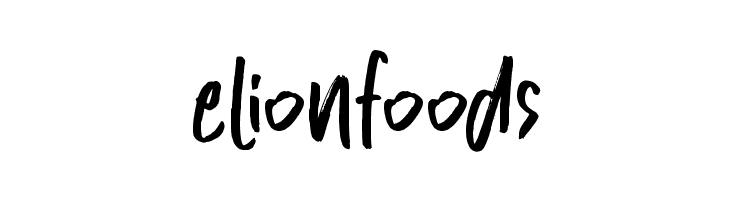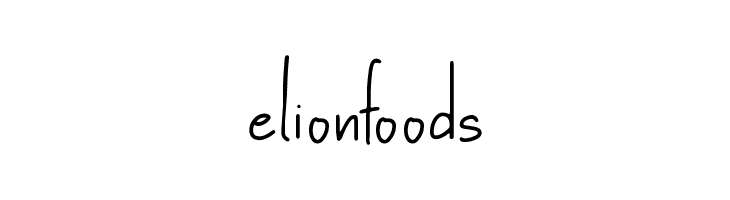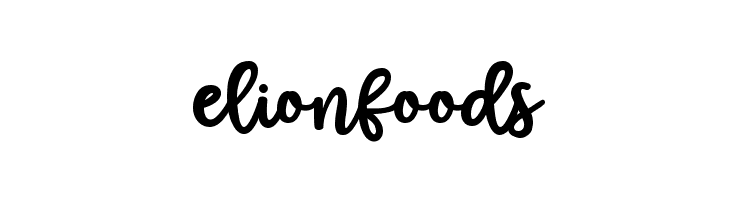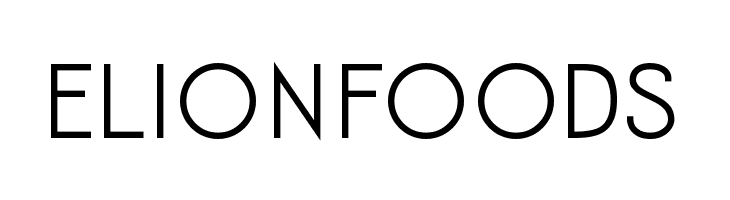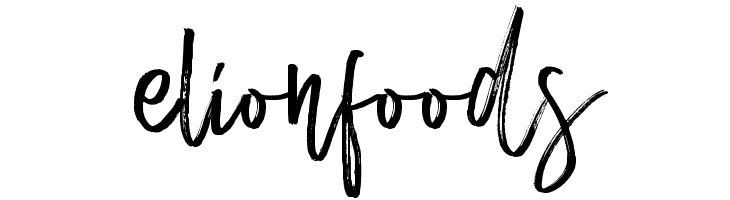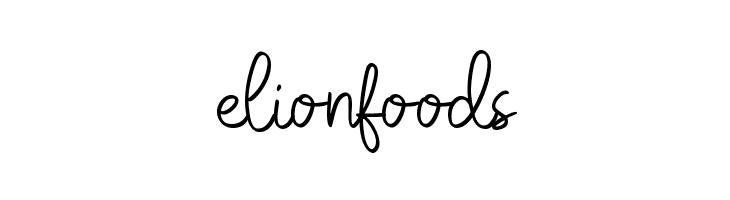
A bold, brush-style font with a lively and artistic flair.
A playful, handwritten font with tall, narrow letters and a casual style.
A playful, handwritten font with tall, narrow uppercase letters and smooth strokes.
A playful, cursive script font with a handwritten feel.
A playful, handwritten font with bold, fluid strokes and a casual style.
A dynamic, expressive handwritten font with a modern brush-like texture.
A playful and elegant script font with smooth, flowing lines and a handwritten appearance.
A flowing, cursive font with elegant, sweeping lines and a handwritten appearance.